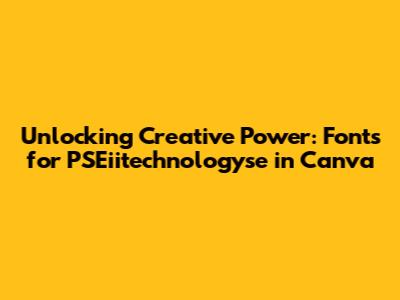
Unlocking Creative Power: Fonts For PSEiitechnologyse In Canva
Hey everyone! πŸ‘‹ Ever wondered how to make your designs pop, especially when you're working with something like PSEiitechnologyse? One of the biggest game-changers in design is, you guessed it, fonts! They can totally transform how your message is received, setting the mood and grabbing attention. And lucky for us, Canva makes it super easy to find and use fonts that fit your vibe perfectly. Let's dive into how to use fonts effectively for PSEiitechnologyse in Canva! This is more than just picking a font; it's about making choices that boost your impact and make your designs unforgettable. From finding the right fonts to using them like a pro, we'll cover everything you need to know. Get ready to level up your design game! πŸš€
The Magic of Fonts: Why They Matter
So, why are fonts so crucial, especially when focusing on a brand or project like PSEiitechnologyse? Think of fonts as the voice of your design. They communicate so much more than just the words themselves. They can be bold, playful, sophisticated, or anything in between. When you pick the right font, you're not just conveying information; you're setting the tone, building trust, and drawing your audience in. For PSEiitechnologyse, a modern, clean font might work wonders, showing that you're cutting-edge and reliable. If you're aiming for something more engaging, maybe a font with a bit of personality is the way to go. The choice really depends on what PSEiitechnologyse is all about and who you're trying to reach.
• Enhancing Readability: First off, readability is key! You want people to actually read your message, right? Picking fonts that are easy on the eyes is super important. Avoid anything too fancy or hard to decipher, especially in longer texts. Think about the size of the font, the spacing, and the overall design. Can people quickly and easily grasp what you're saying? If not, it's time to try something else.
• Building Brand Identity: Fonts help create a consistent look and feel for your brand. Using the same fonts across all your designs (website, social media, presentations, etc.) makes your brand instantly recognizable. It's like having a signature style. This consistency builds trust and familiarity with your audience. When they see your font, they'll instantly know it's you.
• Setting the Tone: Fonts can evoke different emotions and moods. A sleek, minimalist font might feel modern and professional, while a handwritten font could feel more personal and approachable. It's all about matching the font to your message and the overall vibe you want to create. Does your font choice align with what PSEiitechnologyse stands for?
• Boosting Engagement: Interesting fonts can make your designs more visually appealing, which can lead to higher engagement. A well-chosen font can capture attention and make people want to learn more. It's about using design to draw people in and make them curious.
So, think of fonts as a powerful tool in your design toolkit. When you use them well, they can elevate your message, make your brand more memorable, and boost your overall impact. It's about making your designs not just look good, but also feel right! πŸ‘
Finding the Perfect Fonts in Canva
Okay, so you're ready to find the perfect fonts for your PSEiitechnologyse project in Canva? Awesome! Let's get down to the nitty-gritty of how to find and use those fonts like a pro. Canva has a massive library of fonts, so you're bound to find something that fits your style. Here’s how to do it.
1. Start with the Basics: When you open Canva and start a new design, you'll see a text tool. Click on it, and then click on the font dropdown menu. Boom! You've got access to a ton of fonts. Canva shows you a preview of each font, so you can quickly see what it looks like with your text.
2. Filter and Sort: Don't just scroll through everything; that's exhausting! Use the filters and sorting options to narrow down your choices. You can sort by font type (serif, sans-serif, handwriting, etc.) or by style (bold, italic, etc.). This helps you find the fonts that best match the vibe you're going for with PSEiitechnologyse.
3. Explore Font Combinations: Canva offers some pre-made font combinations that work well together. This is a total time-saver, especially if you're not sure which fonts complement each other. These combinations are designed to create a balanced look, making your designs visually appealing.
4. Consider Your Brand's Existing Fonts: If PSEiitechnologyse already has a brand style guide, take a look at the existing fonts. Does Canva have them? If not, you might need to upload your own fonts (Canva Pro users can do this). Sticking to your brand fonts helps maintain consistency and brand recognition.
5. Look for Inspiration: Canva has design templates for almost everything. Check out the templates to see what fonts are used in designs that you like. This can give you ideas and help you discover new fonts you might not have considered.
6. Experiment and Play: Don't be afraid to try different fonts and combinations. Create a few different designs with different fonts and see what feels right for PSEiitechnologyse. The more you experiment, the more you'll learn about what works best. Try bold ones, simple ones, ones that pop!
• Experiment and Learn: Try out new fonts and combinations to develop your design sense. Always be learning!
• Never Stop Practicing: The more you design, the better you will get!
As you continue your design journey, keep exploring and experimenting. Canva offers endless possibilities for creativity. The best designs combine great fonts with your unique vision. By embracing these tips and tricks, you're well on your way to becoming a font master! Go forth and create amazing designs! πŸ”₯ Keep playing with your designs, and don't be afraid to think outside of the box!